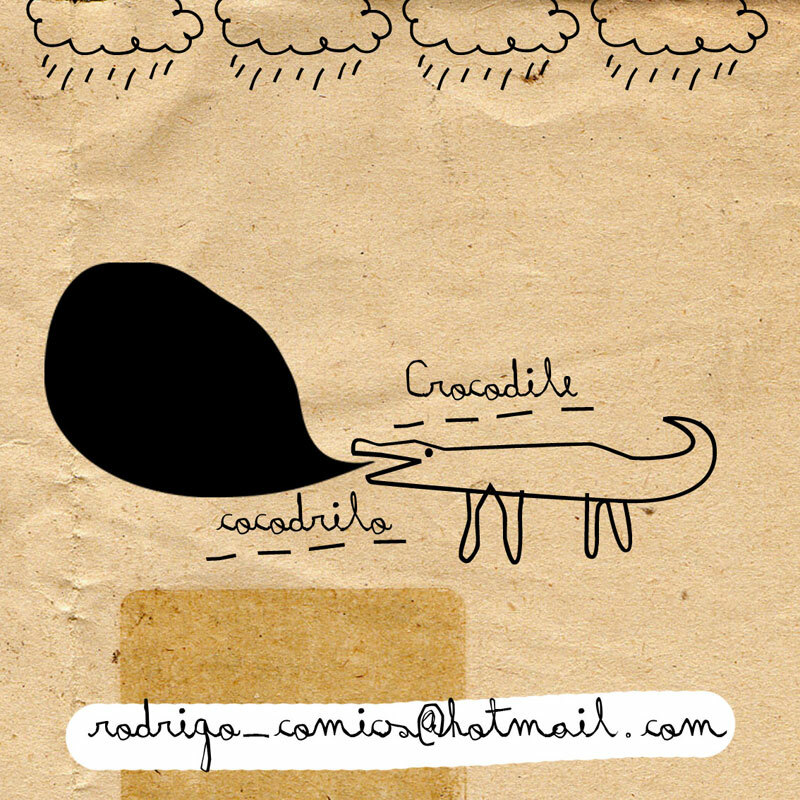
Rayair by Rodrigo Araya Salas is a free handwritten display script with the loose motion of a quick signature. Rounded loops and changing stroke widths give the letters an easy, unpolished flow. Long connecting lines and sudden dips make the writing especially animated.
It can turn a title into an illustrated signature for boutique branding or posters. The informal curves also suit personal invitations and album artwork with a quirky, intimate tone. Its continuous line echoes hand-drawn portraits or doodles, so the lettering can become part of the illustration.